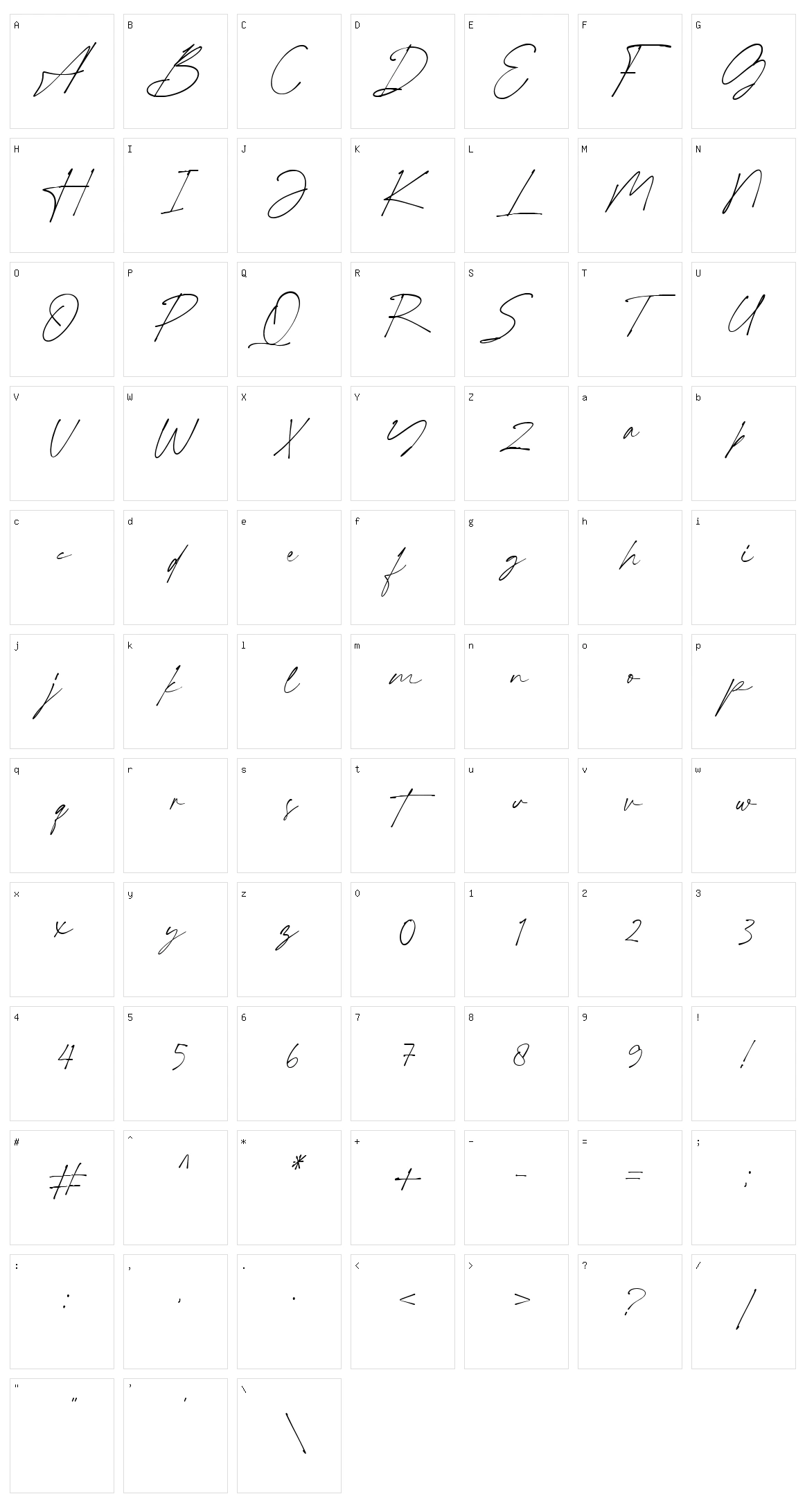
The free font Blastmith is carefully designed by Prioritype Co, showcasing a thoughtful balance of creativity and usability and falls under the Script font style. When you download the ZIP file, it contains only 572.78 KB of font files, making it lightweight and quick to download. Please review the license details below to understand permitted usage and distribution rights. If license information is not available, we recommend using this font for personal projects only or contacting the author directly for commercial usage permissions.